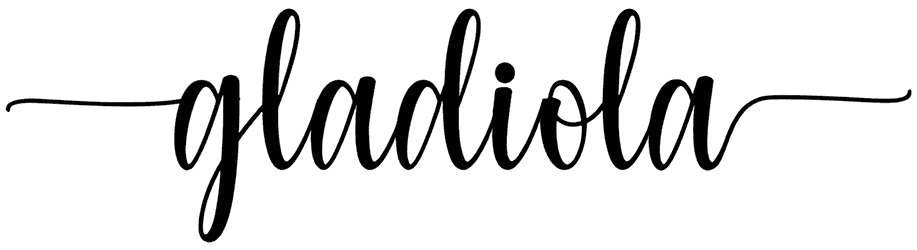
Gladiola Font
Are you ready for an offer of a contemporary and elegant face to design your words? As a love font, Gladiola is a modern item with a chic mood that can be catchy for various creative projects. Set it on your designs, such as business cards, fashion ads, flyers, or the like, and receive the feedback.